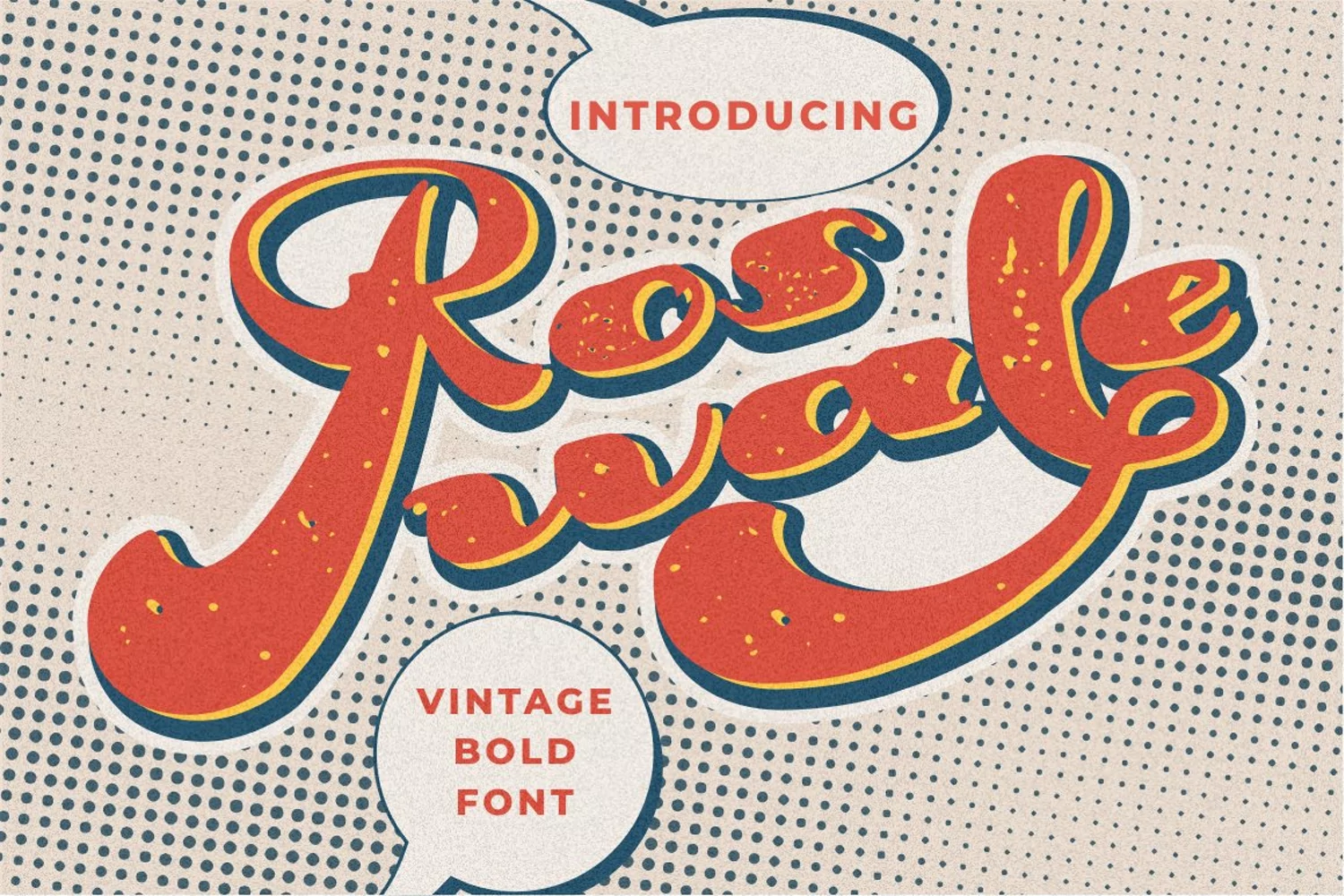
Roswale - Vintage Bold Font
Roswale - Vintage Bold Font. Roswale inspired by vintage poster design, Roswale is a family script font designed with carefully handcrafted, Roswale is a bold font perfect for your home decor and craft designs
Roswale is a vintage font that is perfect for story books, illustrations, comic books, t-shirts, posters, greeting cards, logos, branding, stickers, svg, crafting and all for display purposes.